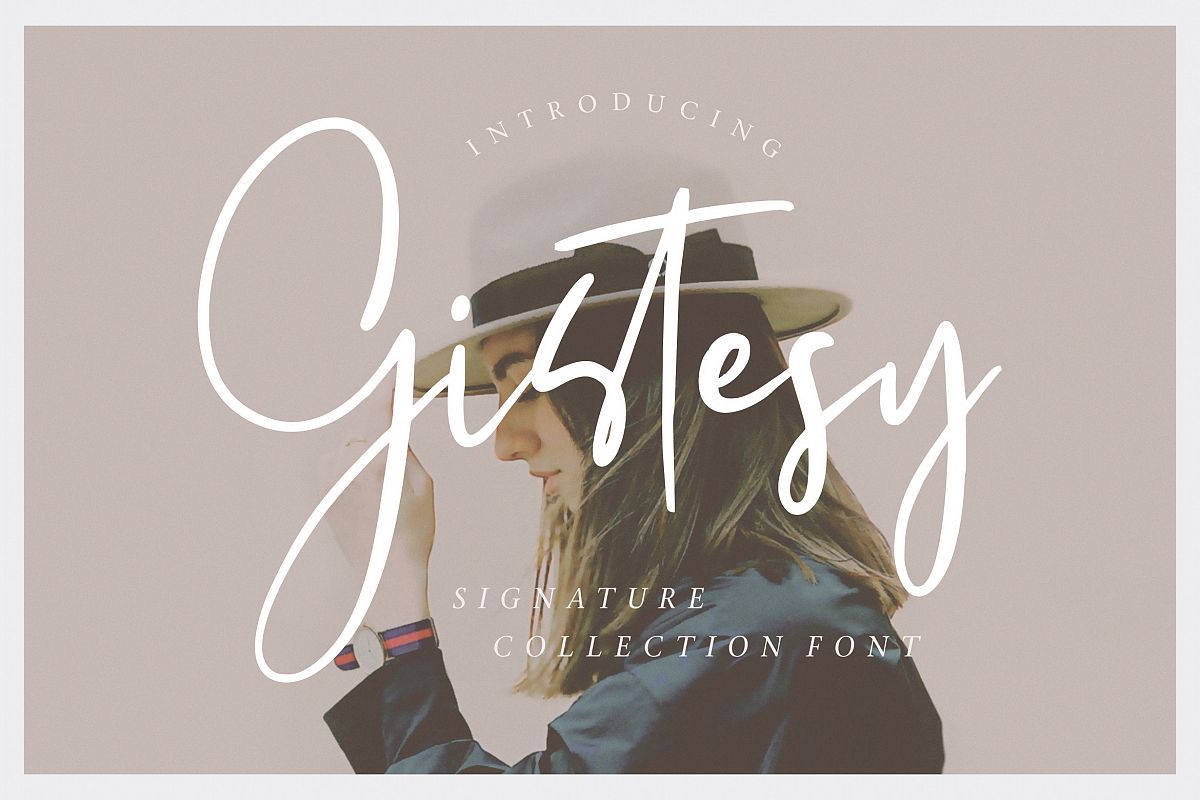
Gistesy Font - Signature Collection
Gistesy
Gistesy Font is signature collection font with natural movement make looks elegant, classy and beauty for your latest project.
Gistesy Font is perfect for branding projects, logo, wedding designs, social media posts, advertisements, product packaging, product designs, label, photography, watermark, invitation, stationery and any projects that need handwriting taste.
• Tons of glyphs
• Fonts include multilingual support for; ä ö ü Ä Ö Ü ß ¿ ¡